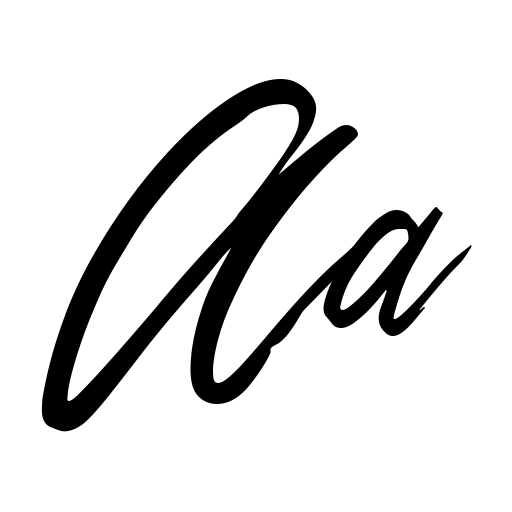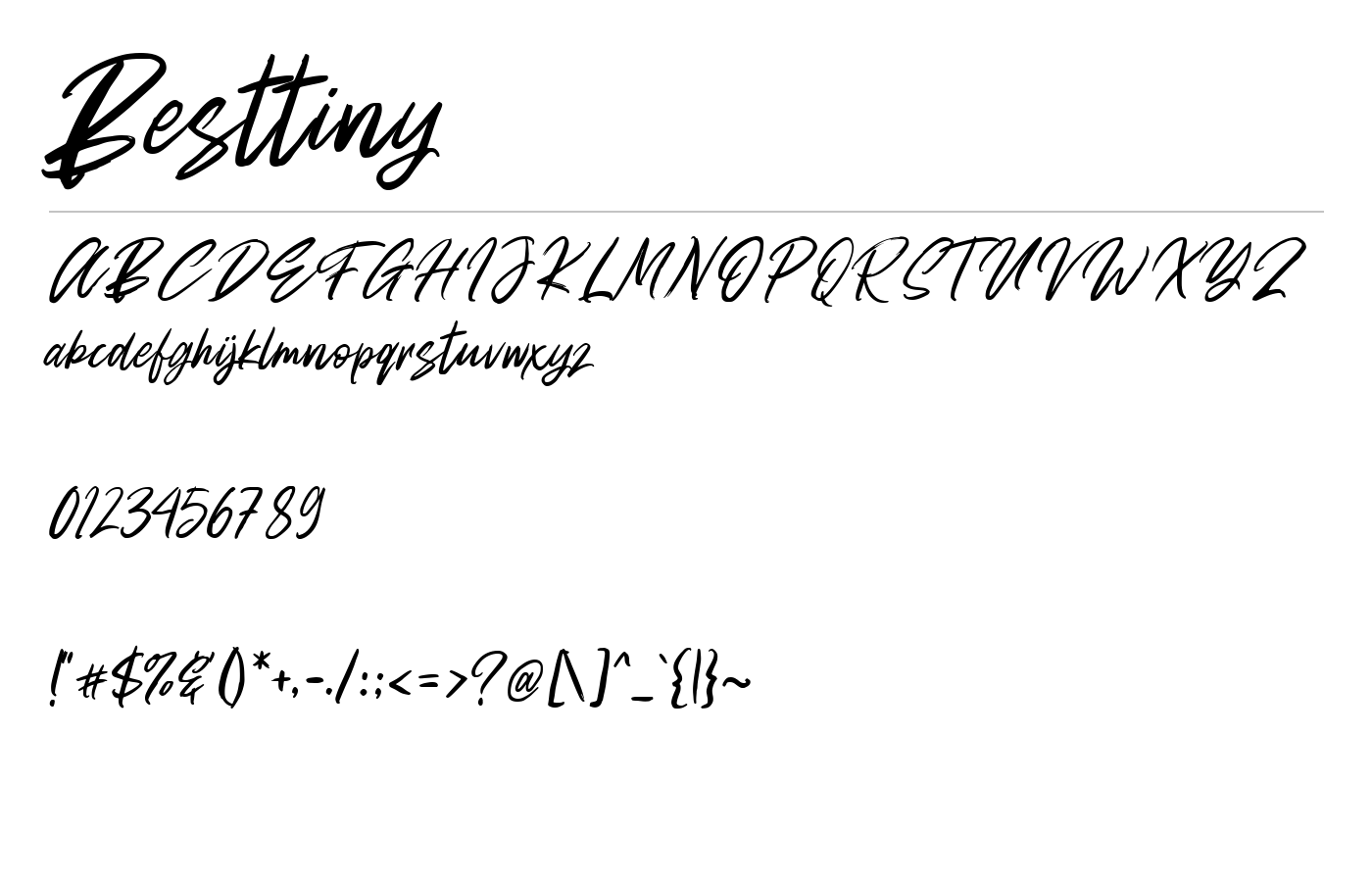
Besttiny is a lively and elegant script font with a dynamic, handwritten feel characterized by smooth, flowing strokes and moderate contrast in weight. Its casual yet refined style makes it perfect for branding, invitations, and creative projects that seek a personal, stylish touch. This font shines in headlines and logos where a genuine, artistic expression is desired.
Besttiny Font
About Besttiny Font
| Font family | Besttiny Font |
| Designer | Wahyu Andi Prasetiyo |